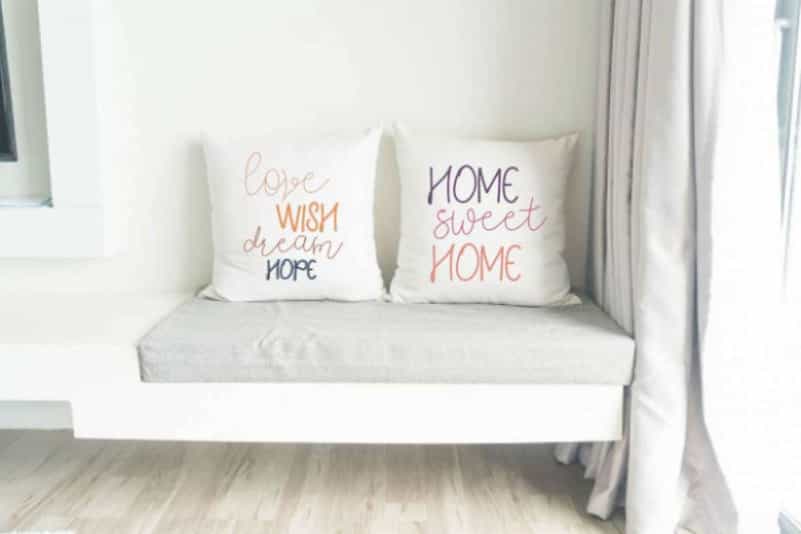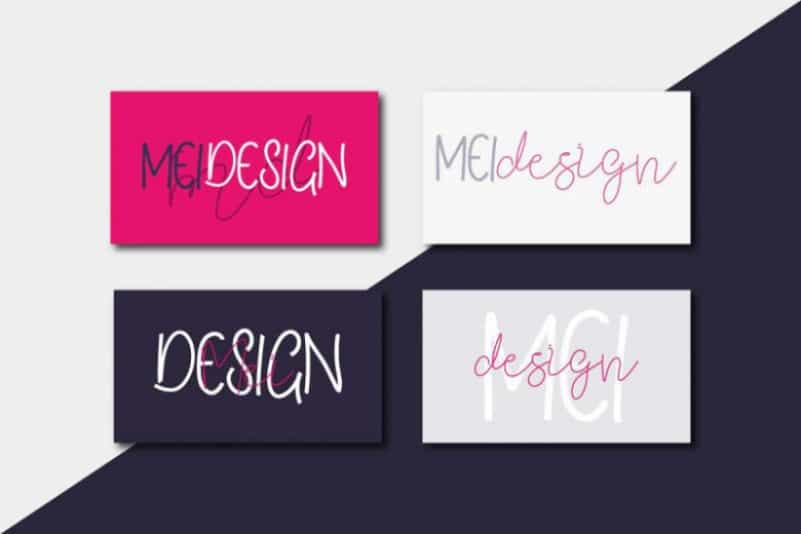
Orla Fiola Font Duo is a special typeface family with two different styles. The typeface has a lovely characters set, it is well-kerned and spaced. The style characters of this font are classy, chic, elite and handwritten. It has two styles of script and display fonts.